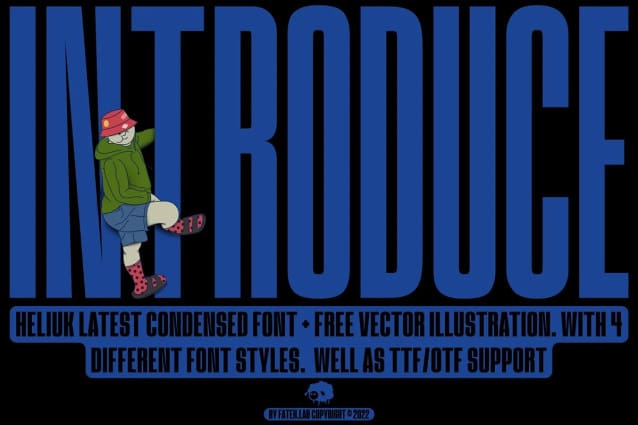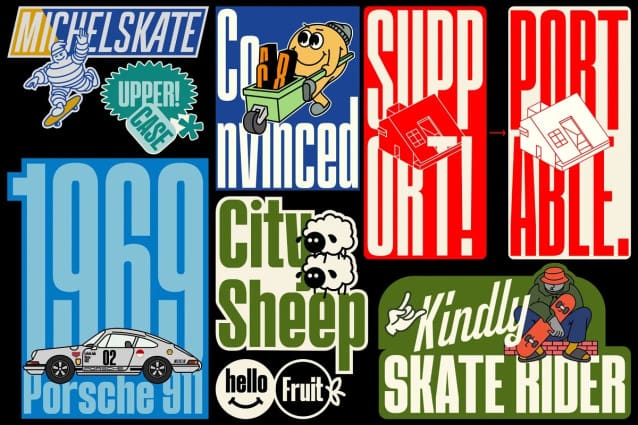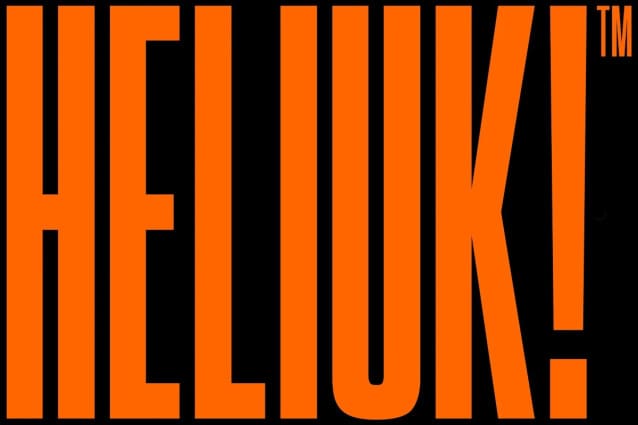
Heliuk Font
Heliuk Font is a condensed type of font that has a different character from the previous condensed font, Heliuk has a strong but soft character, with a cheerful and fresh theme, supported by 4 choices of font types, Heliuk Font is able to answer your current needs who are designing something great. and what’s even more interesting you get a very cool free vector bonus. Its weight is superior in posters, social media, headlines, magazine titles, clothing, large print formats – and wherever you want to see it. Inspired by the design styles that are currently popular, let’s make your imagination come true with heliuk.